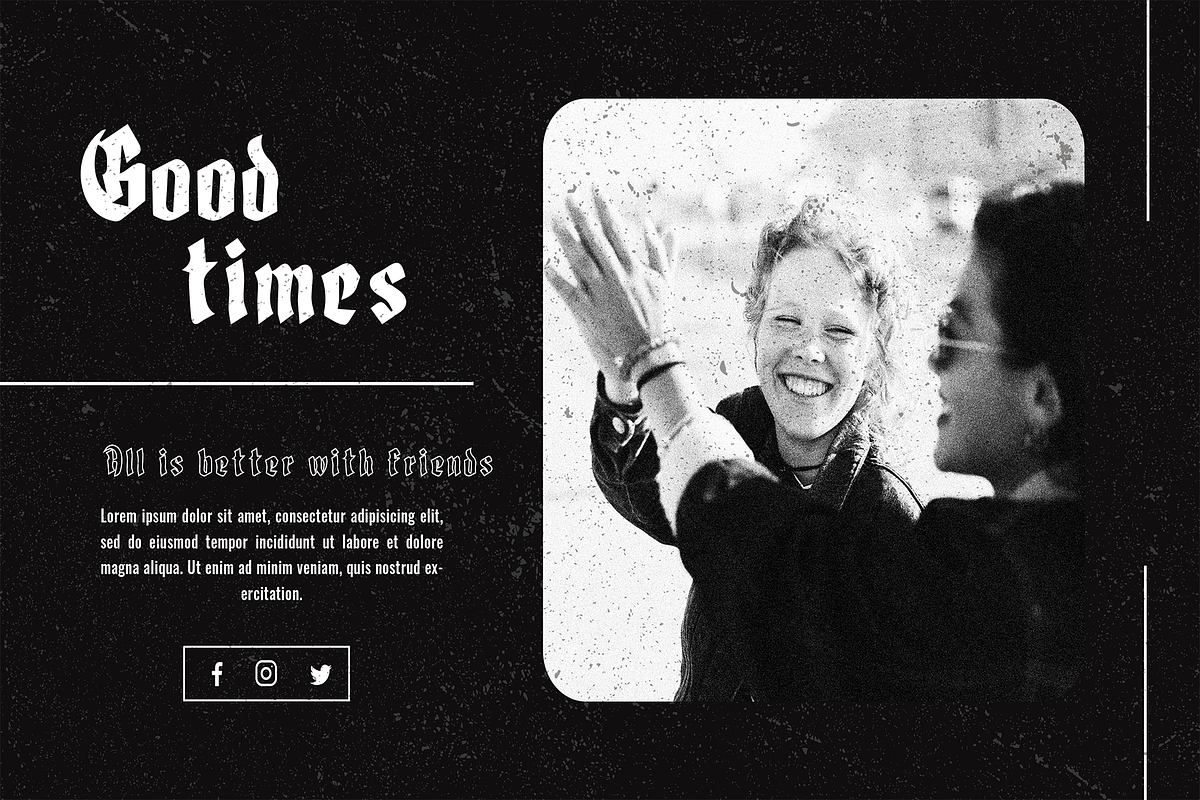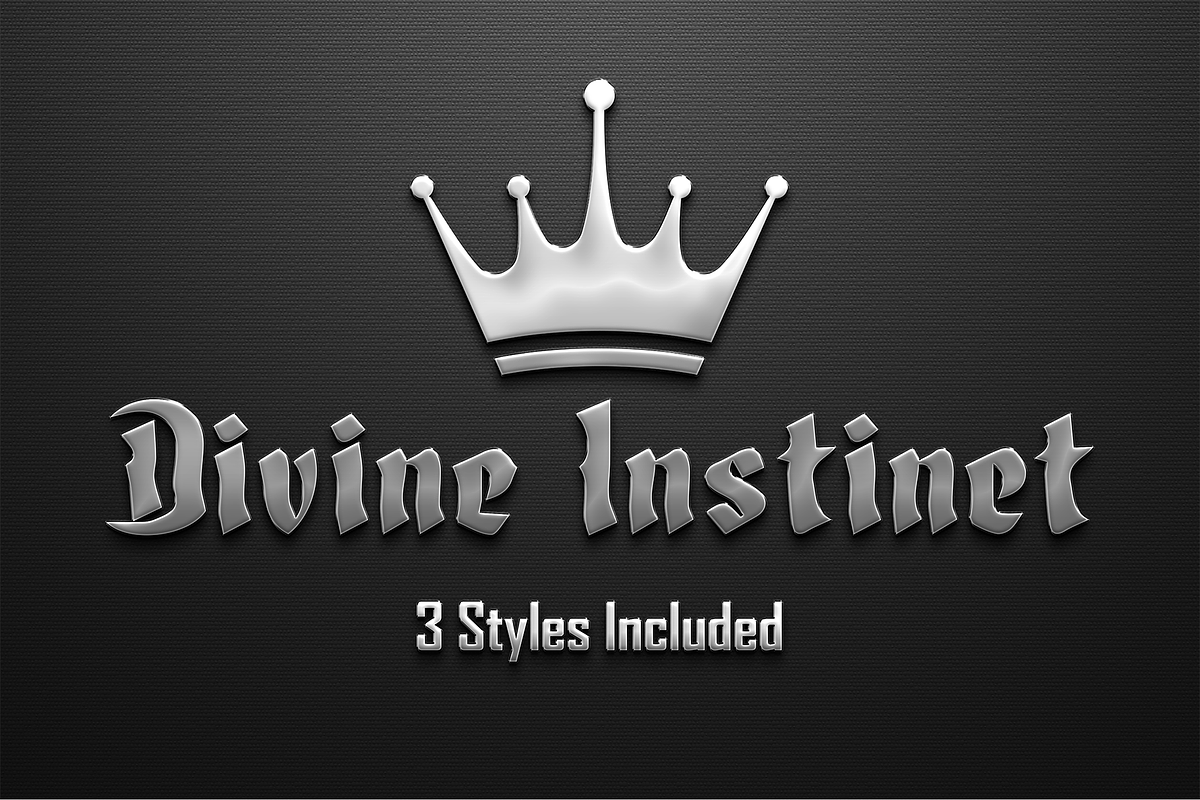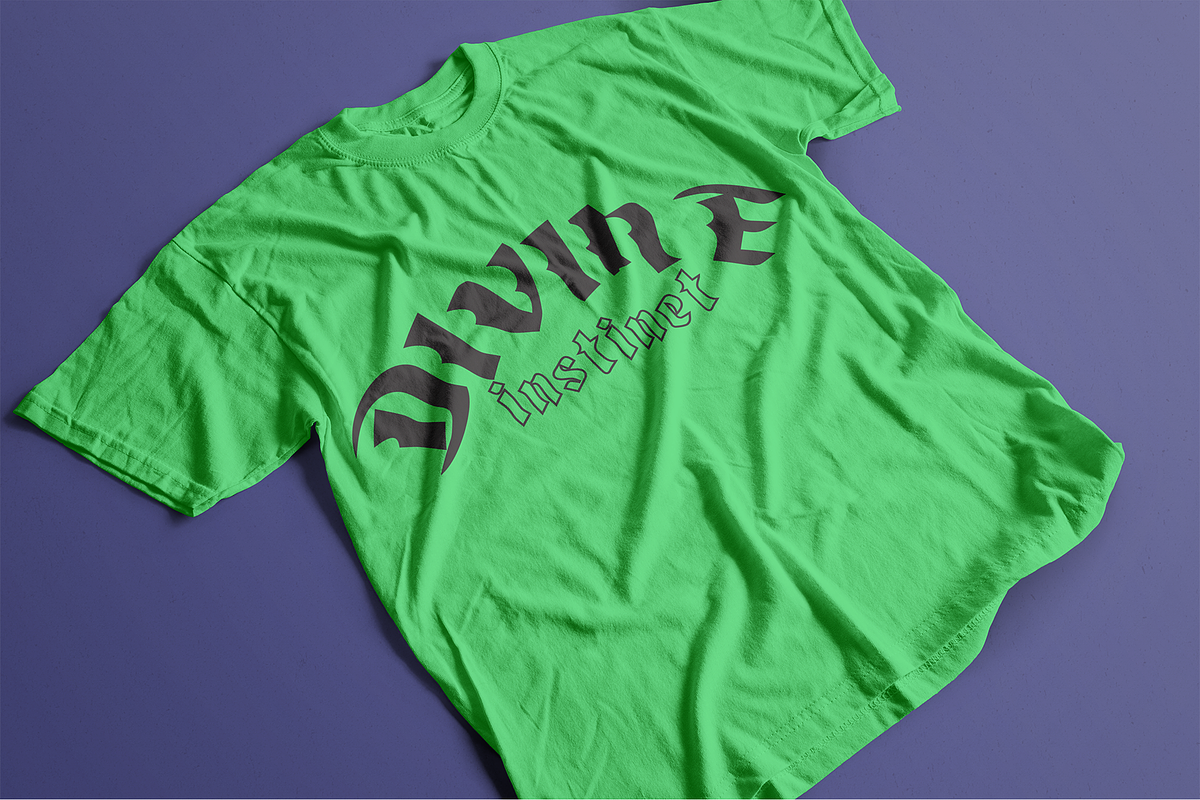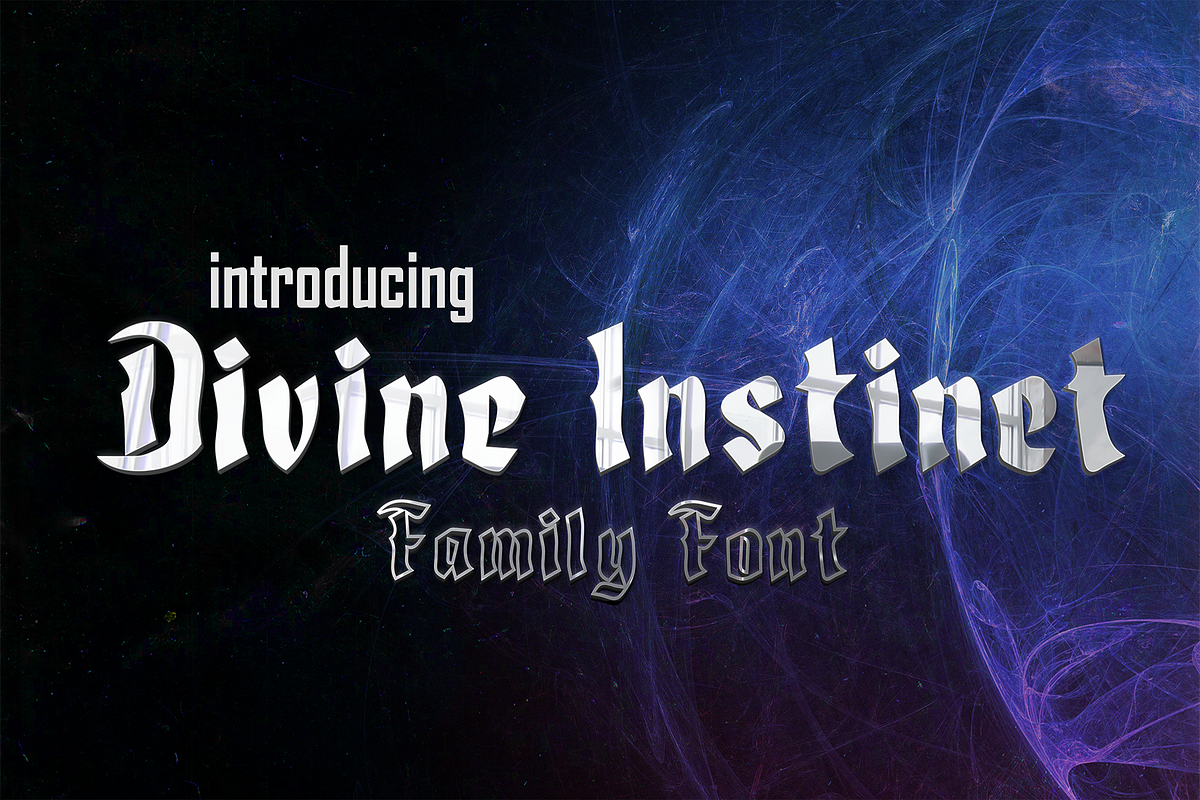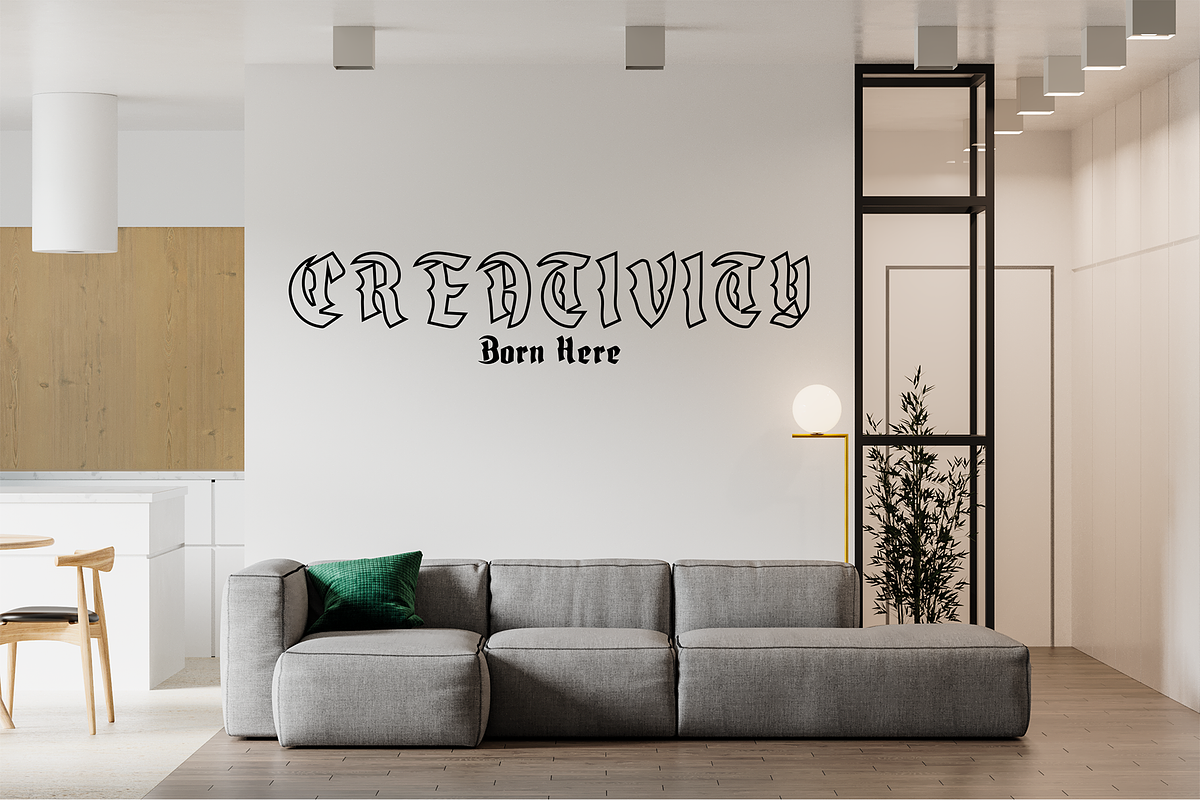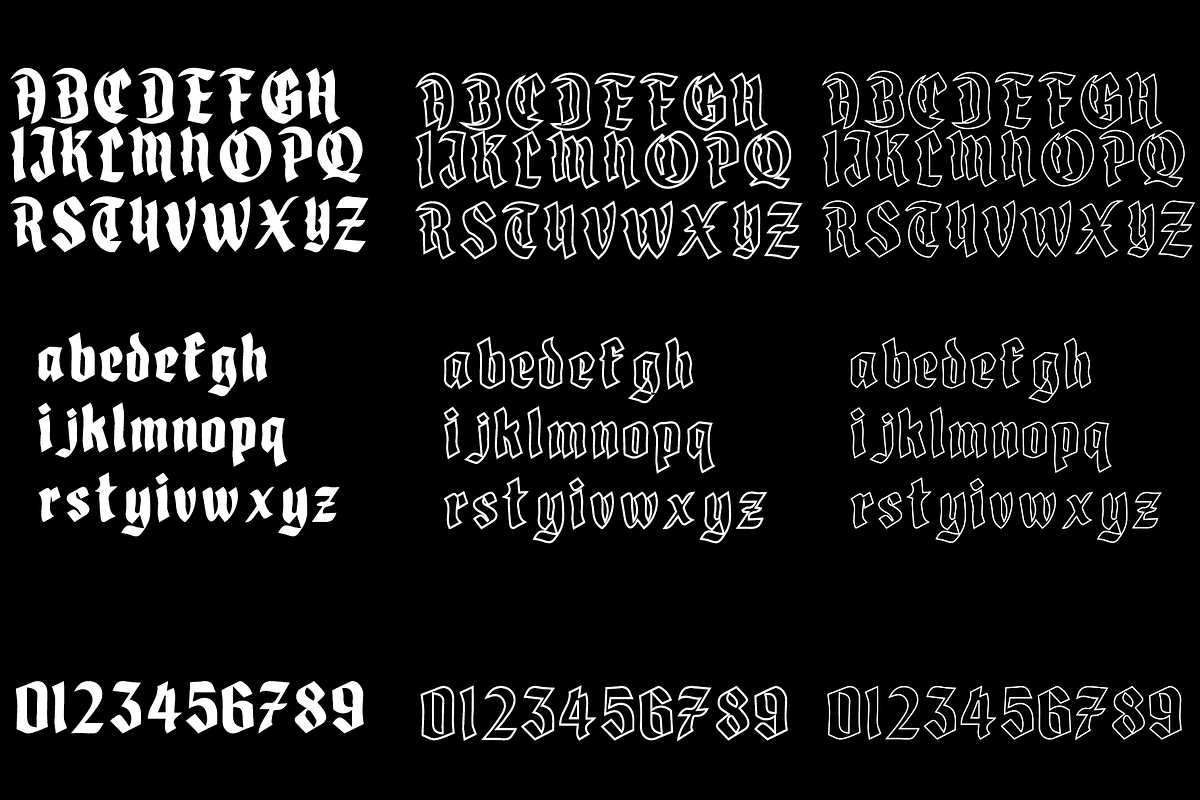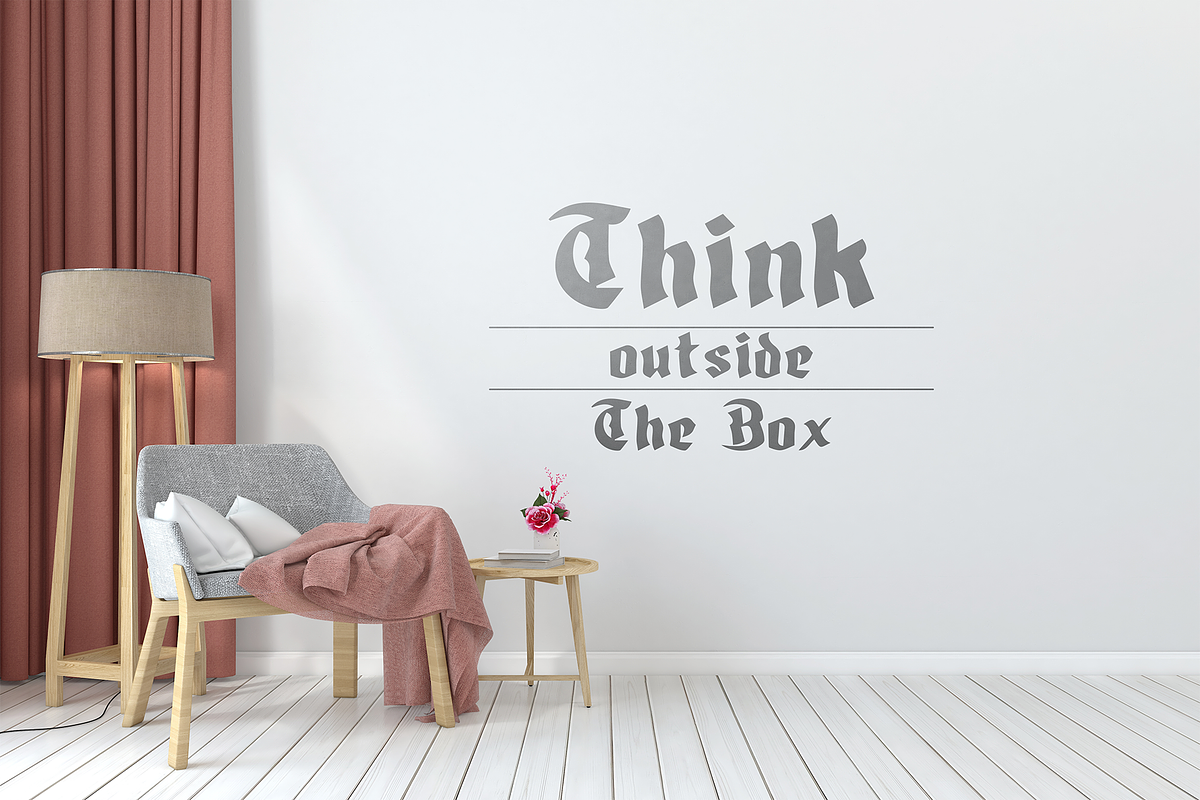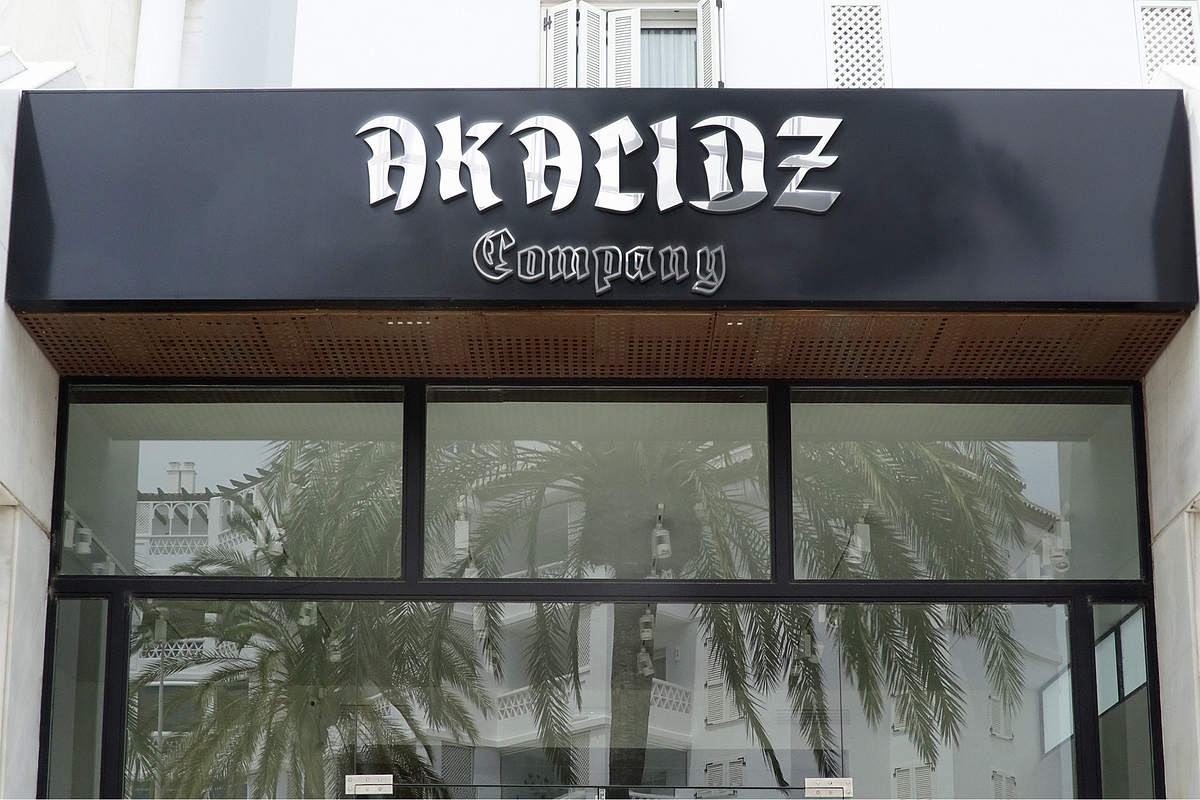
Divine Instinct
Divine Instinct is a chic and distinct Blackletter font. No matter the topic, this font will be an incredibly asset to your fonts’ library, as it has the potential to elevate any creation. An easy-to-read Blackletter style from Akalidz. Divine instinct has a hand- lettered personality that keeps it from being too stiff.